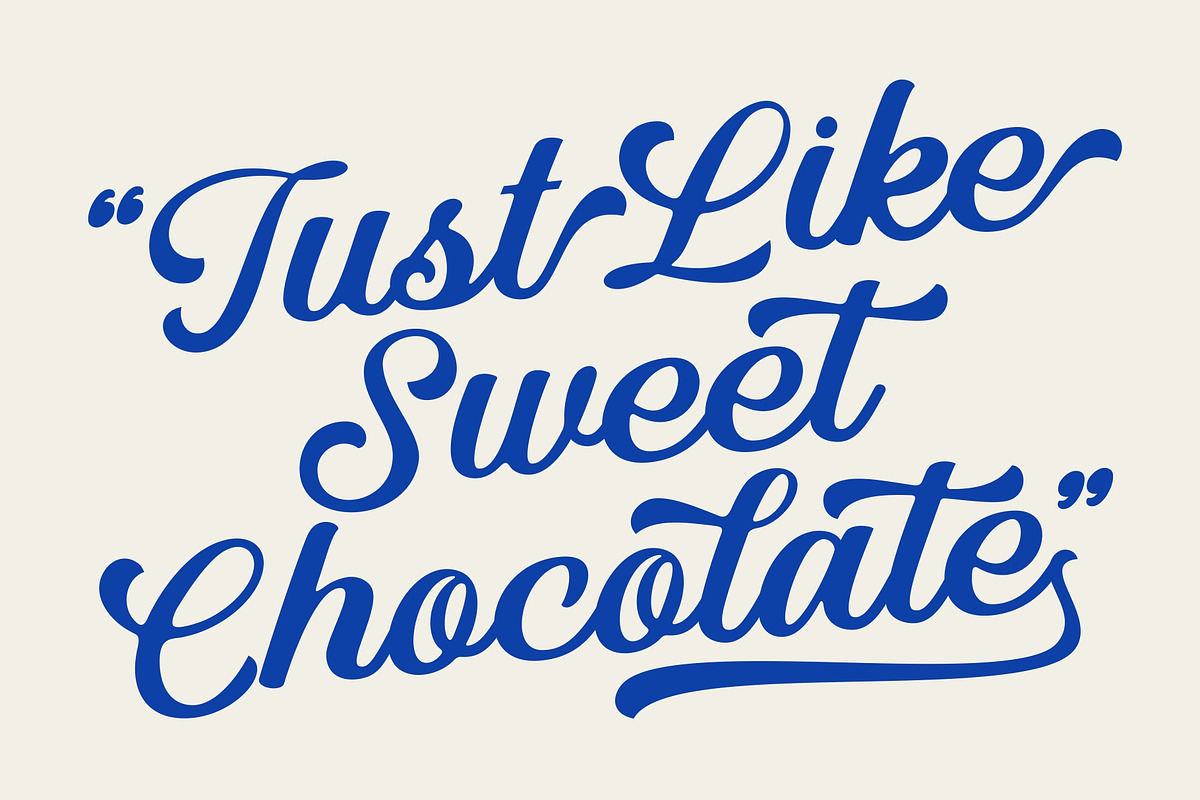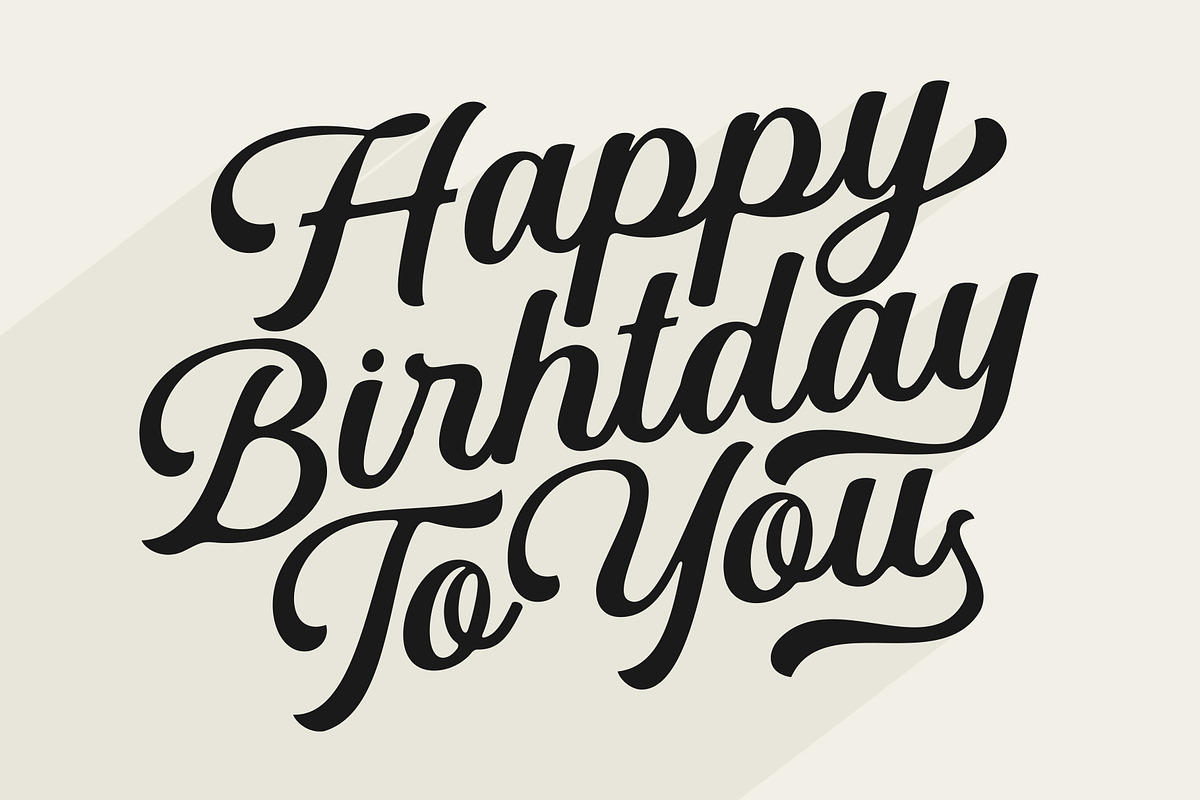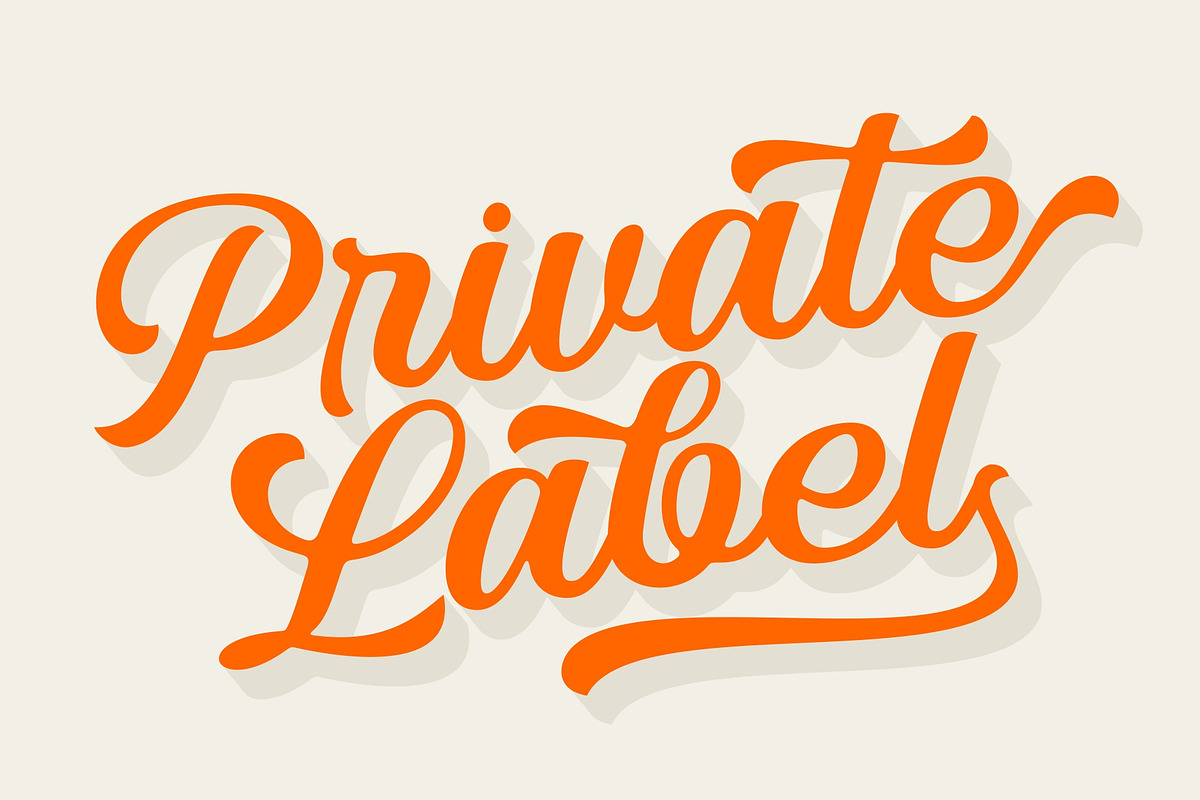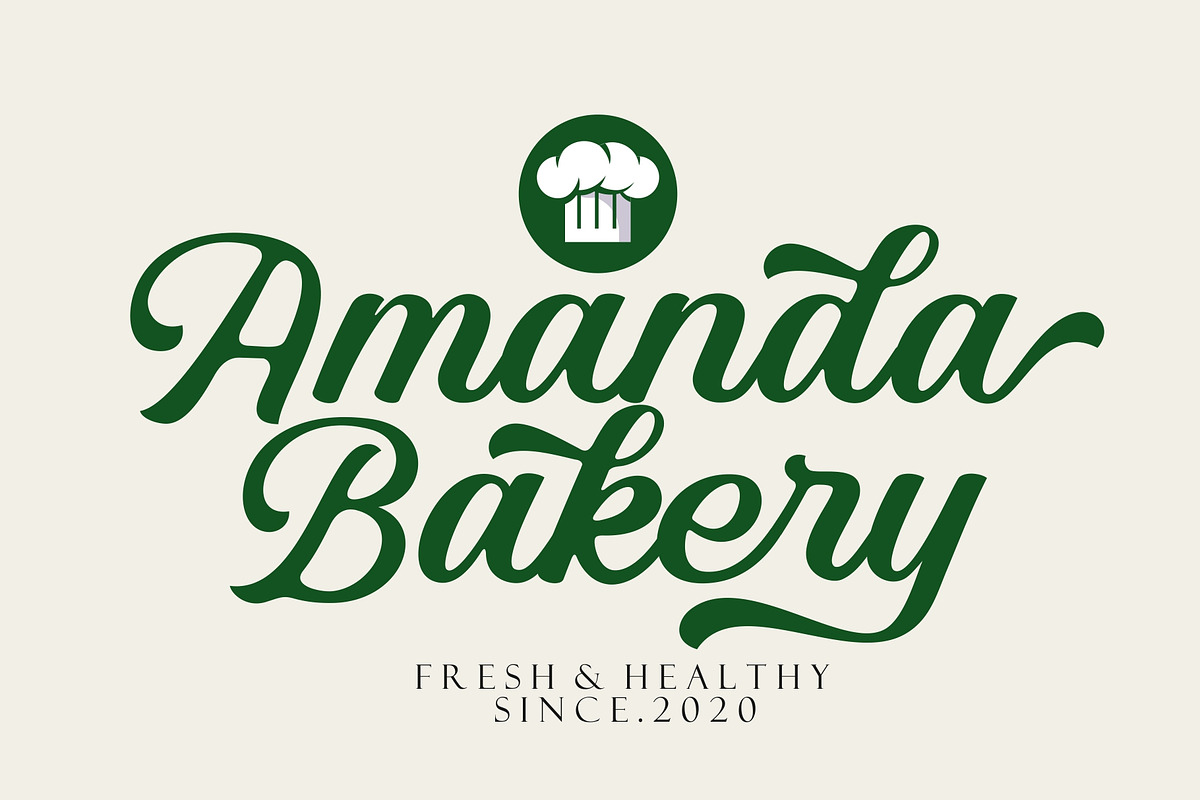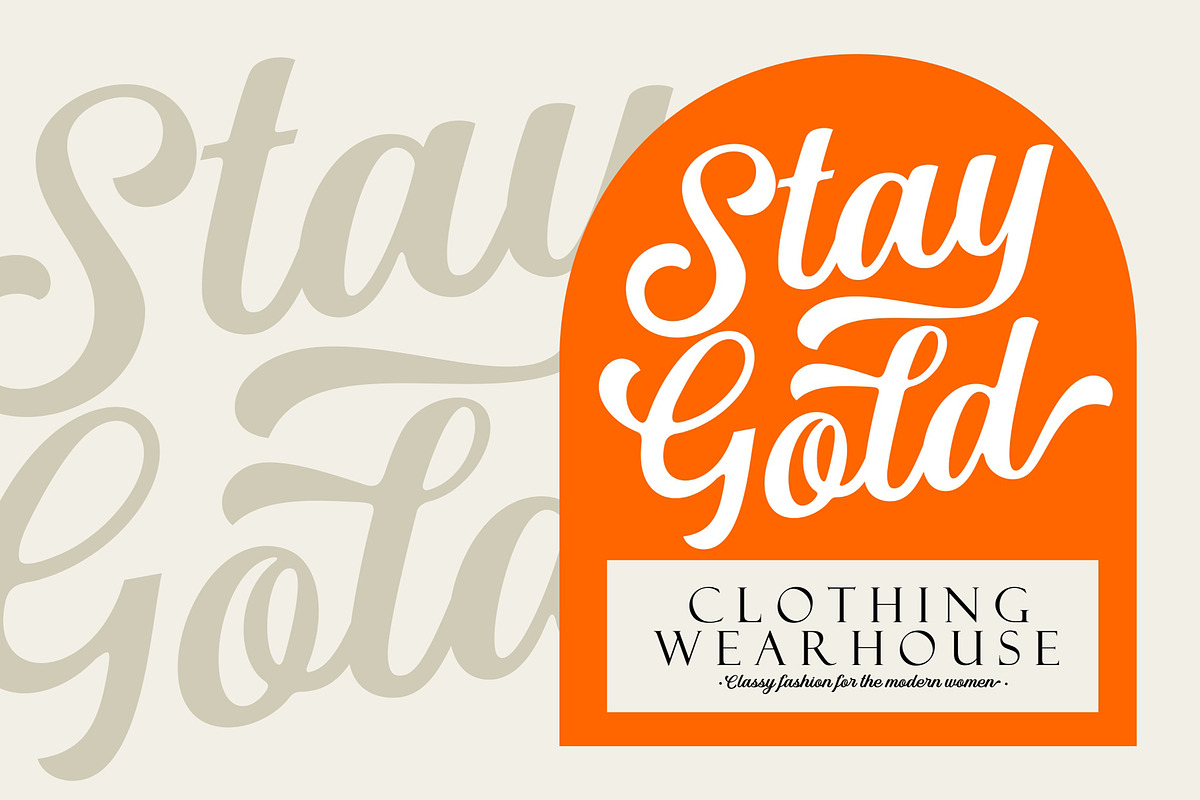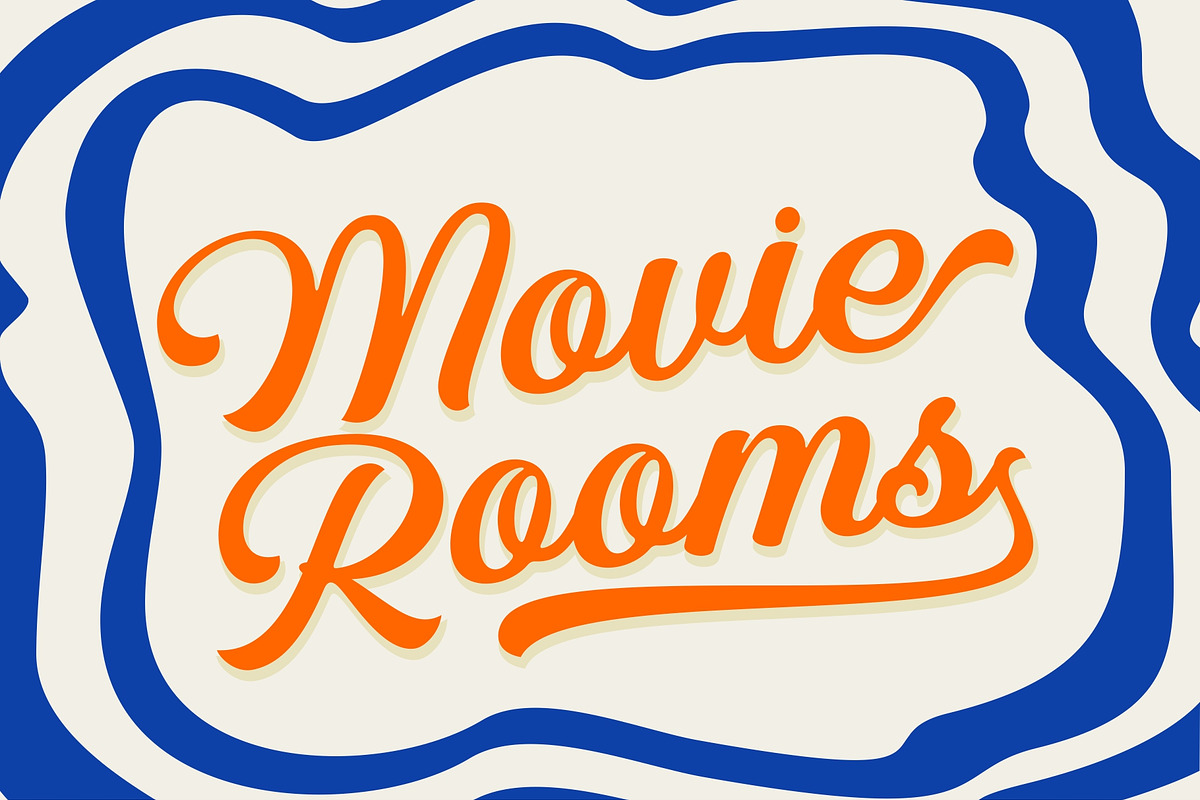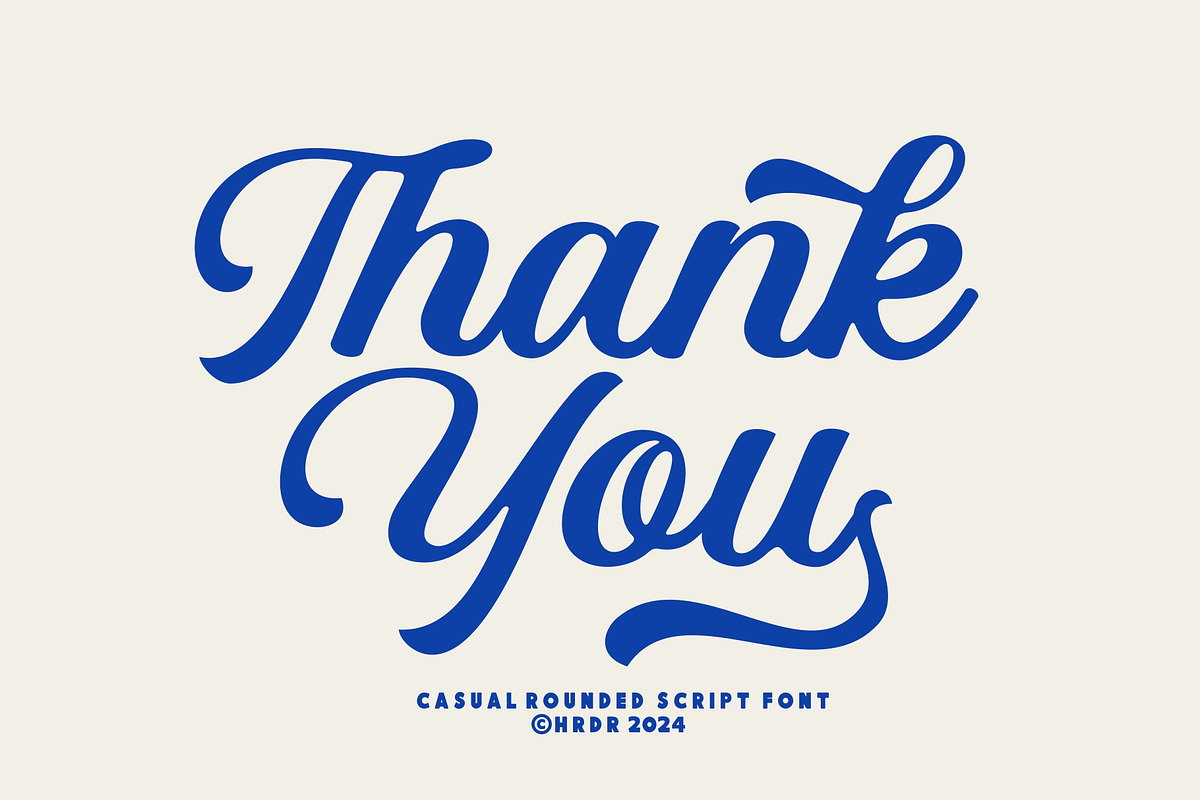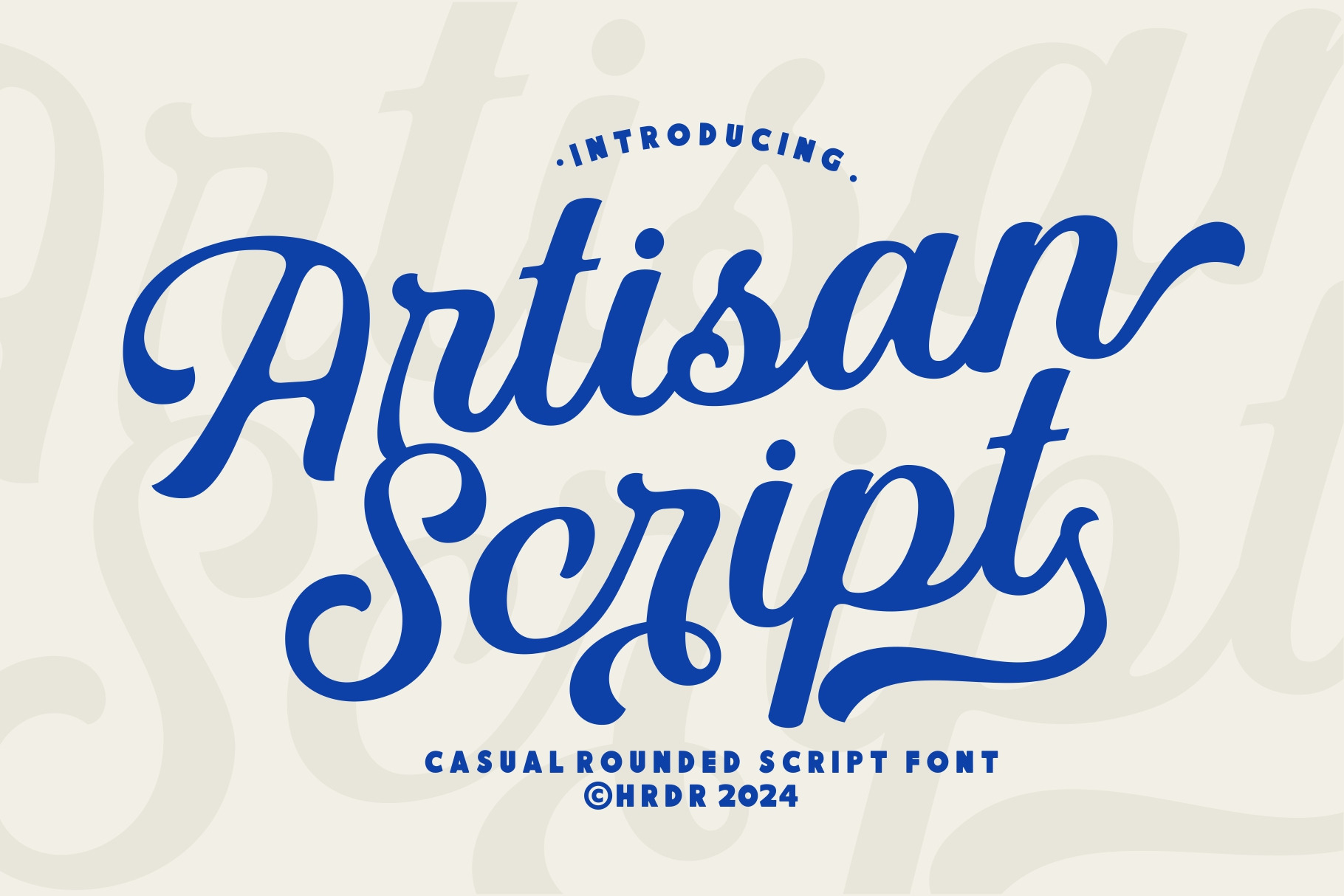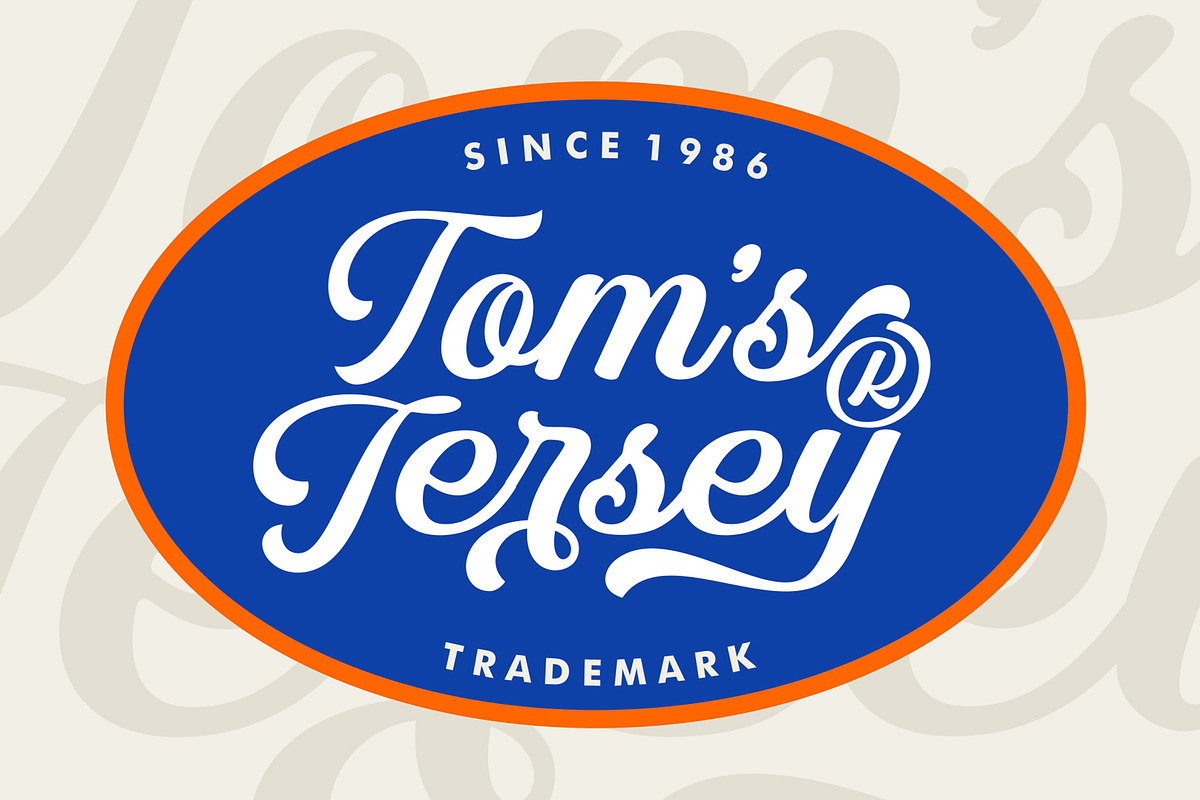
Artisan Script - Rounded Casual font
Artisan Script is a Casual Rounded Script font. It's perfect for branding, wedding invitations, photography, Neon Sign, bloggers, logos, greeting cards, Logo, Quotes and more.
- numeric & Multilingual support
- Stylistic Alternates with (Ss01,Ss02,Ss03,Ss04,Swashes and Ligatures)